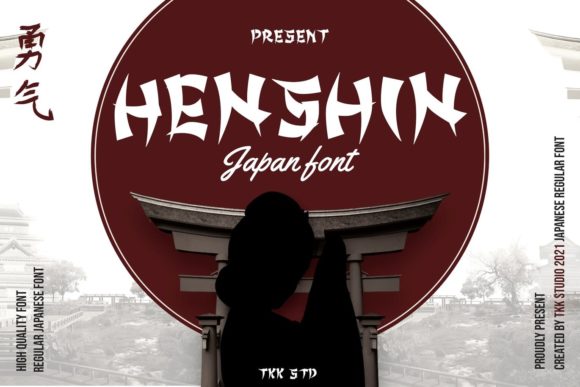
Journey to the Far East with Henshin Font, a captivating display font that embodies the essence of Japanese culture. Unlock a world of artistic possibilities and elevate your designs to new heights with this remarkable font.
Immerse yourself in the rich heritage of Japan, where ancient traditions and modern innovation harmoniously blend. Henshin Font embodies this duality, effortlessly fusing classic Japanese aesthetics with a contemporary twist. Its bold, expressive characters command attention, while its intricate details add a touch of elegance and sophistication.
Unleash your creativity and let Henshin Font guide you to design masterpieces that resonate with authenticity and style. Whether you're crafting a food menu, flyer, or print, this font will transform your words into visually stunning statements. Its versatility knows no bounds, making it the perfect choice for a wide range of design projects.
Picture your words dancing across the page, each letter a stroke of artistic brilliance. Henshin Font's meticulously crafted glyphs create a visual symphony that captivates the senses. Its unique ligatures and swashes add an extra layer of refinement, ensuring your designs stand out from the crowd.
Experience the power of typography as Henshin Font breathes life into your words. Its carefully balanced proportions and kerning ensure flawless readability, even at small sizes. Every character is a work of art, designed to enhance the impact of your message and leave a lasting impression on your audience.
Welcome to the world of Henshin Font, where creativity knows no limits. Let this font be your muse as you embark on a journey of artistic expression. Explore its endless possibilities and unlock the full potential of your design vision. Embrace the beauty of Japanese culture and let your imagination soar with Henshin Font.